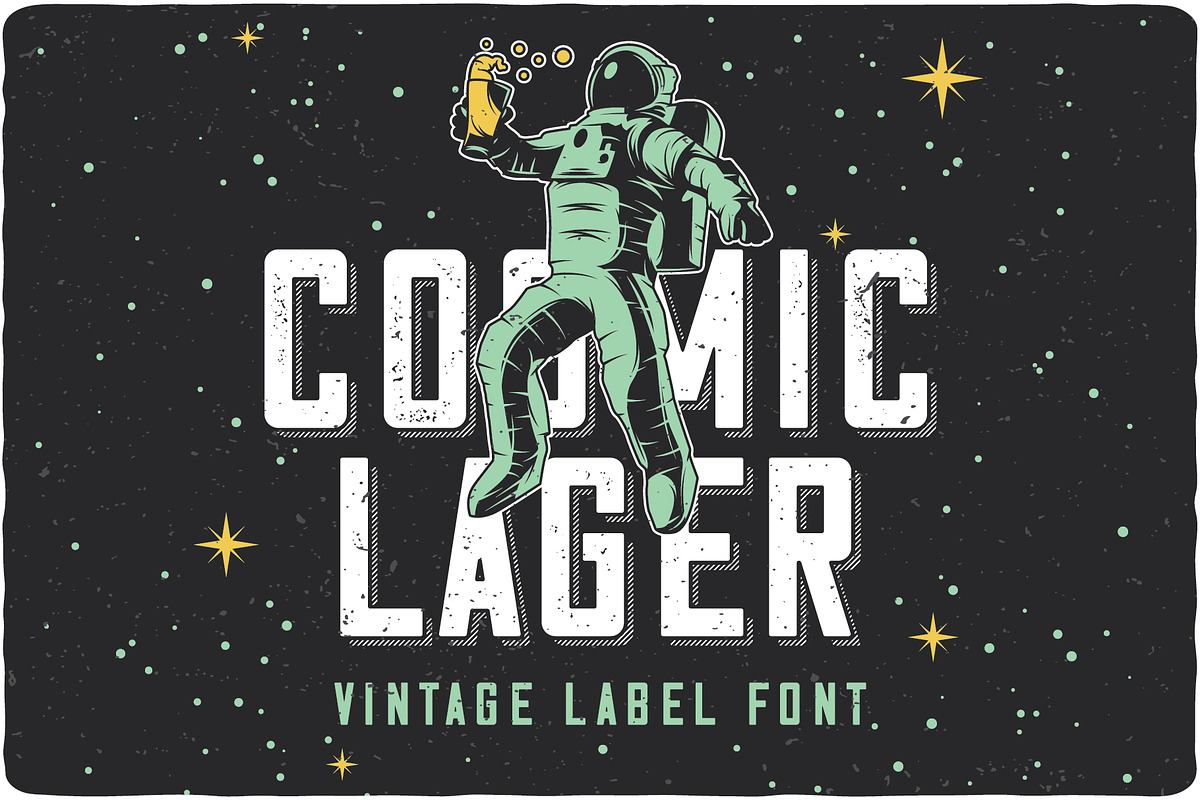
Cosmic Lager Font Free Download is a bold, space-inspired typeface that blends vintage charm with interstellar vibes. Perfect for retro-futuristic posters, craft beer labels, music merch, and anything that needs a galactic twist, this font stands out with personality and punch.
Designed with chunky letterforms and subtle sci-fi flair, Cosmic Lager Font Free Download brings a unique mix of nostalgia and novelty. Whether you're branding a brewery, creating event flyers, or launching a cosmic-themed product, this font gives your project a bold, stylized identity.
Its versatility shines across packaging, headlines, apparel, and digital artwork—especially when paired with retro color palettes or neon accents. From outer space to your creative space, Cosmic Lager is ready to orbit around your wildest ideas.
Crack open some creativity and let your designs go beyond the stratosphere with this unforgettable typeface.